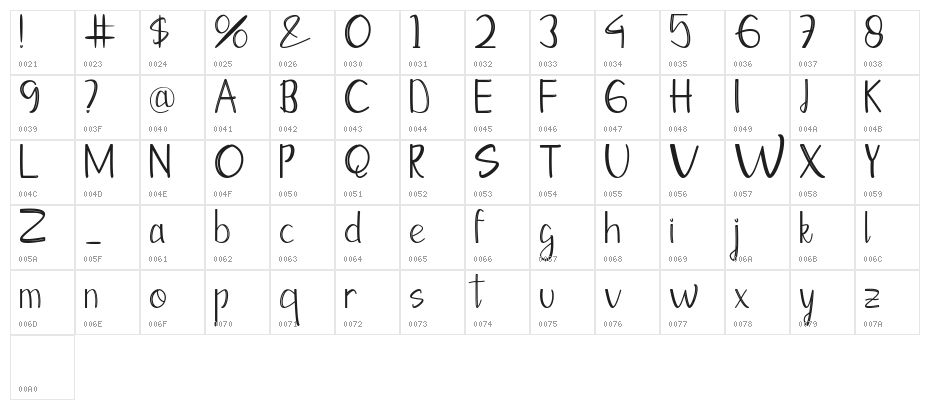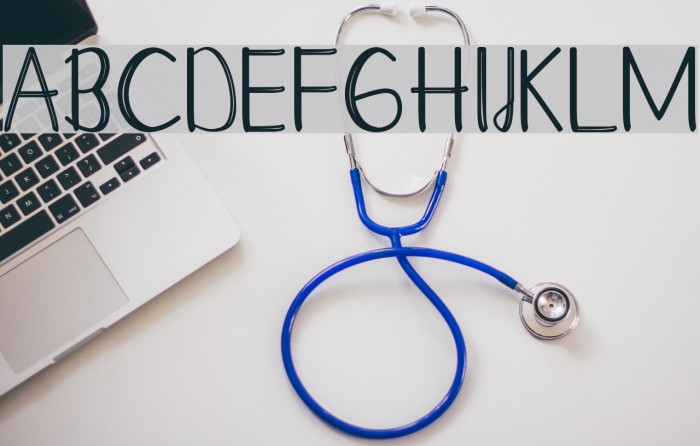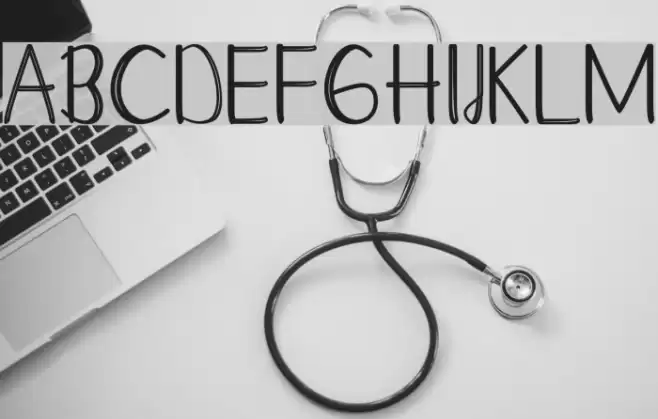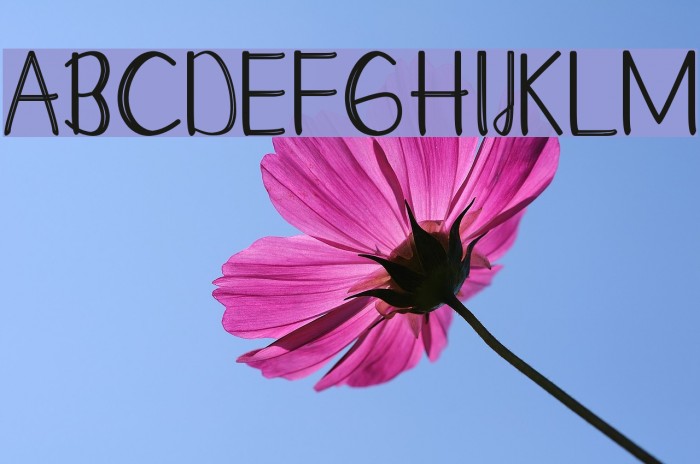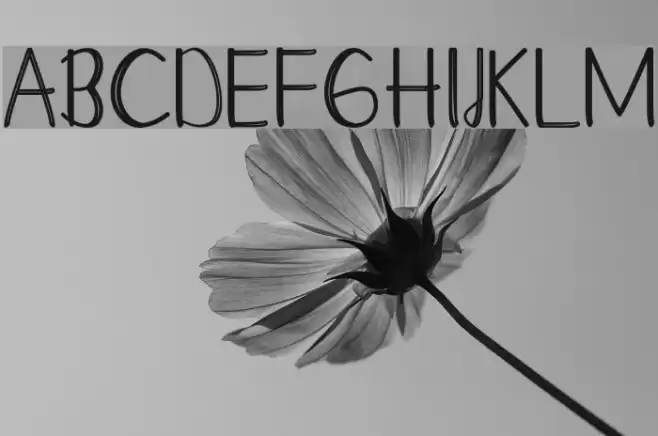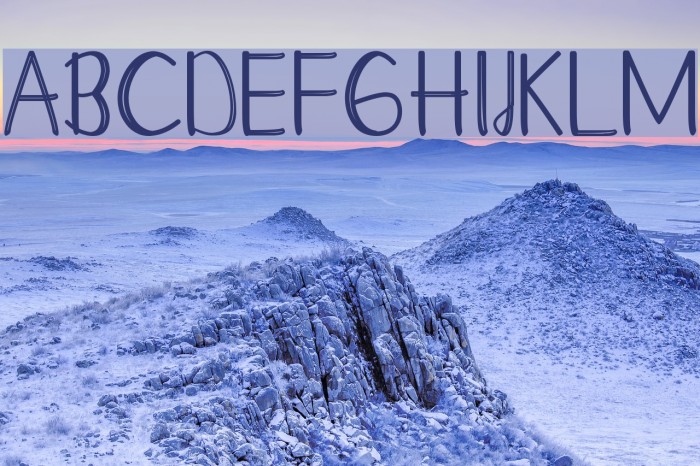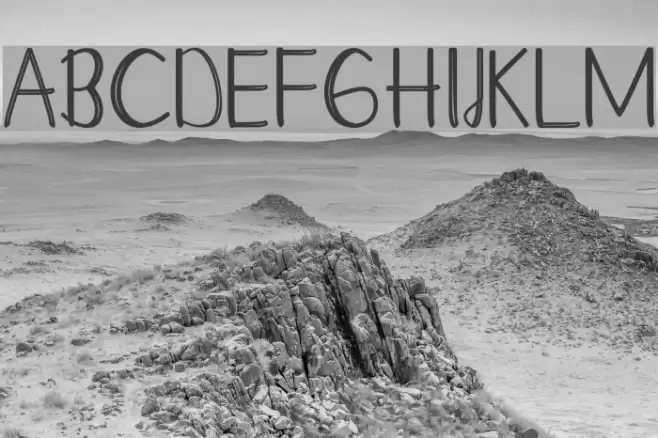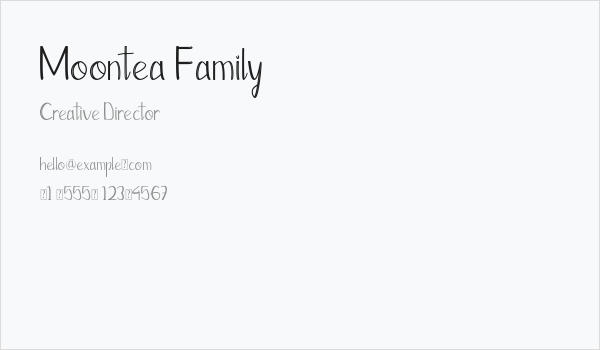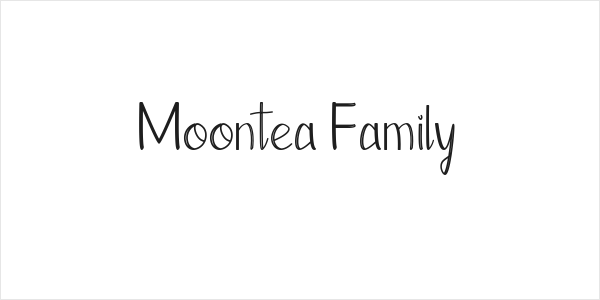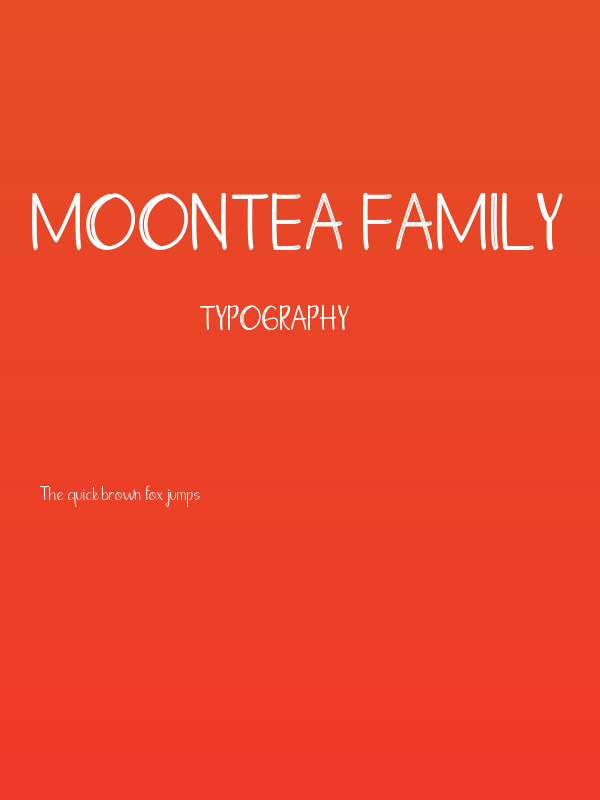
Moontea Family Font
Moontea Family Description
This font features a playful and whimsical style, characterized by its handwritten appearance. The letters are tall and narrow, with a slight slant that adds a dynamic feel. The strokes are consistent in width, giving it a clean and modern look. The uppercase letters are distinct with rounded edges, while the lowercase letters maintain a similar style with a touch of elegance. Numbers are clear and easy to read, matching the overall aesthetic. Special characters are creatively designed, maintaining the font's unique personality.
| Proposed Projects | Ideal for children's books, creative branding, playful invitations, and casual social media graphics. |